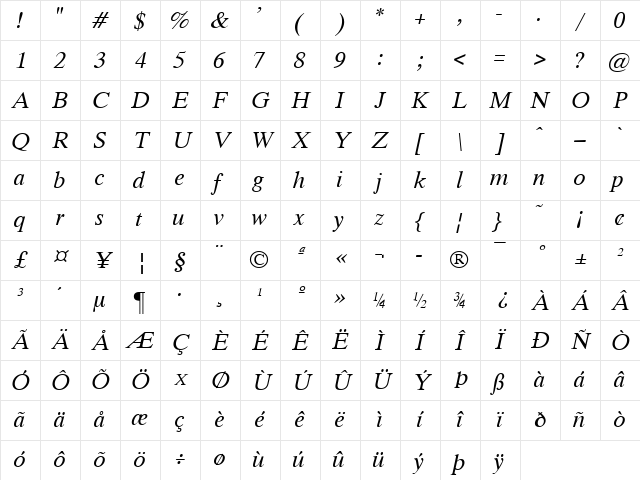
MgOpen Canonica Italic
Foundry: Magenta Ltd.
Design Context for MgOpen Canonica
MgOpen Canonica is a composed and adaptable typeface that performs quietly and consistently across a wide range of design contexts. The slanted form adds forward momentum and visual energy.
Pro Tip: Use MgOpen Canonica for emphasis, pull quotes, and subheadings where its slanted energy can add rhythm to the layout.
Who designed the MgOpen Canonica Italic font?